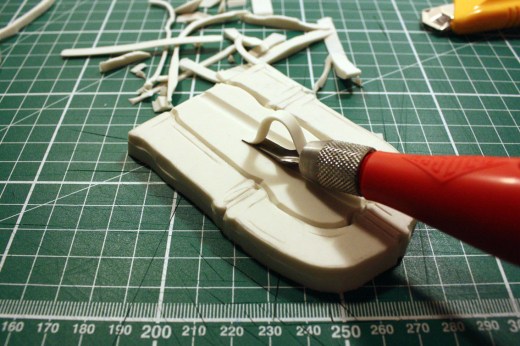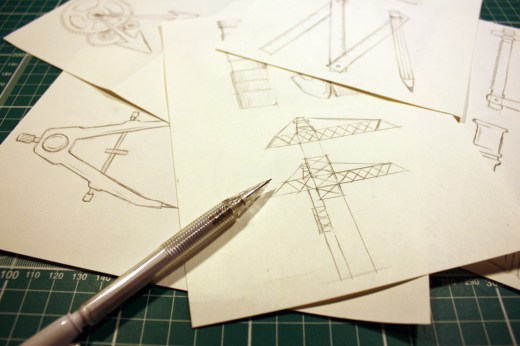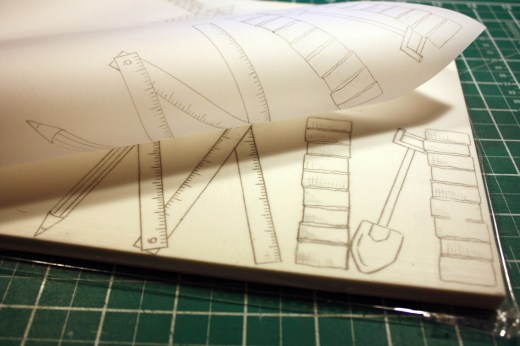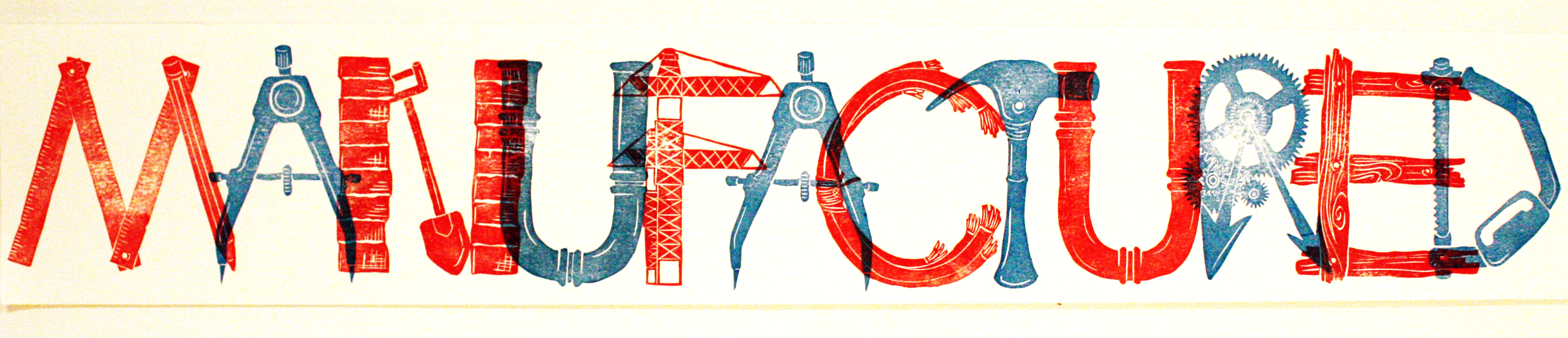
‘Manufactured’ by Qian Yuan
“I draw some components and tools of manufacturing as letters, then cut them out of lino as printing them would emphasise the repetitive nature of the manufacturing process.”
Yuan is a graphic design student from Central Saint Martins who enjoys illustration, photography, animation, interactive design and crafting objects by hand.
‘Manufactured’ by Qian Yuan will be displayed at Type Tasting with the London Design Festival 2013 at the V&A.